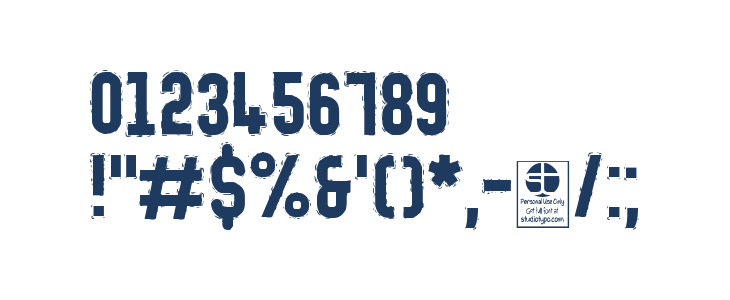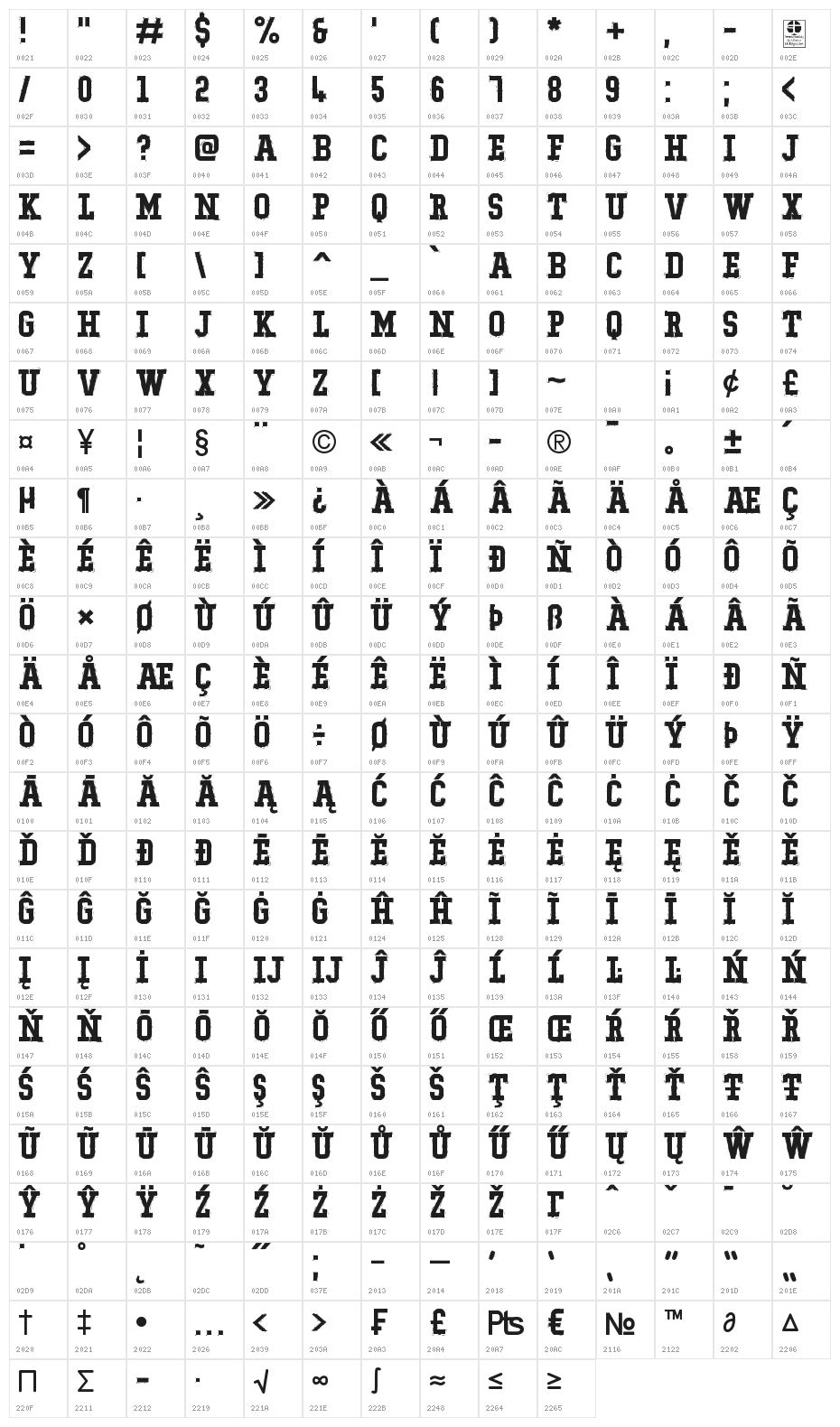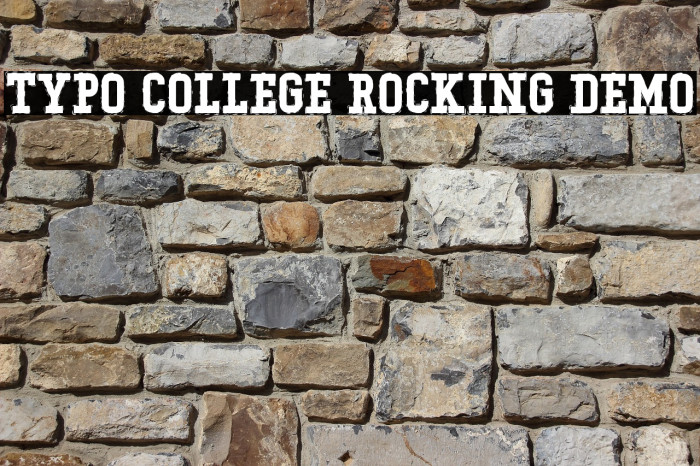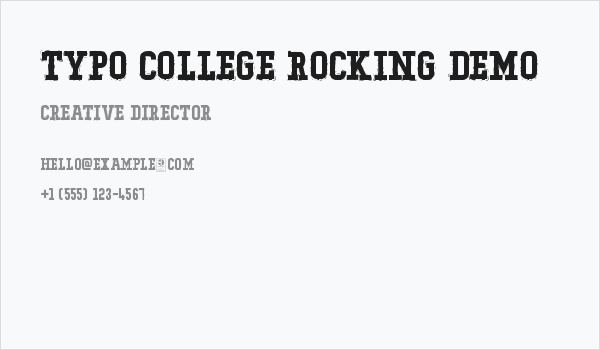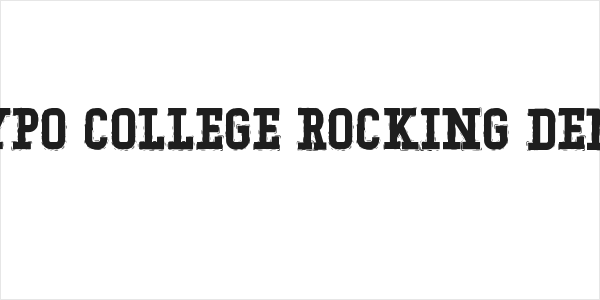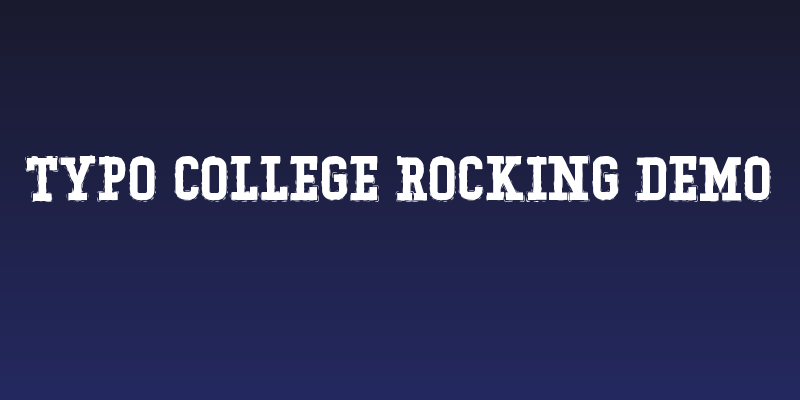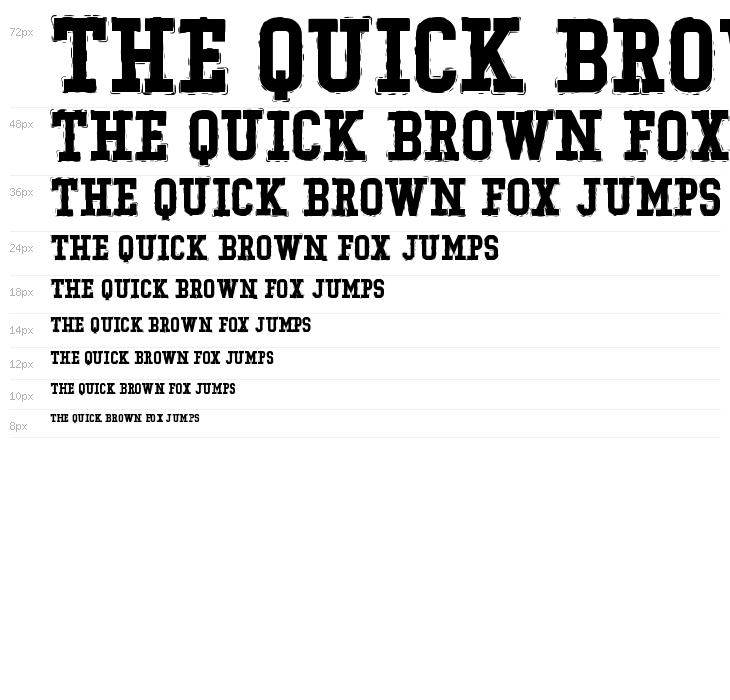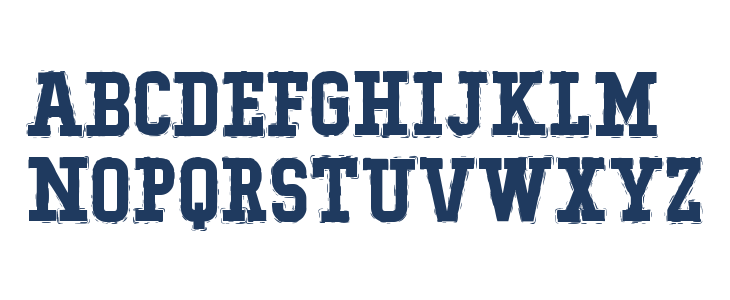
Typo College Rocking Demo Font
Typo College Rocking Demo Description
This font features a bold, distressed style with a collegiate theme, characterized by its strong, blocky serifs and a textured, worn appearance. The uppercase letters are prominent and commanding, ideal for making a statement. The numbers and special characters maintain the same rugged aesthetic, ensuring consistency across all uses. Its design evokes a sense of vintage athleticism and rebellious spirit, making it perfect for projects that require a bold, eye-catching typeface with a touch of nostalgia.
Overall StyleVintage
Use CaseHeadlines, Logos
Proposed ProjectsIdeal for sports team branding, event posters, vintage-themed designs, and apparel graphics.